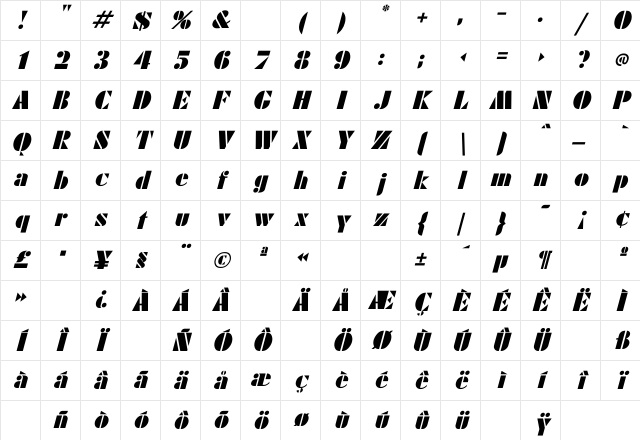
Rodchenko Italic Italic Free Font
Rodchenko Italic Italic
Style: Italic
Design Context for Rodchenko Italic
Rodchenko Italic is a composed and adaptable typeface that performs quietly and consistently across a wide range of design contexts. The slanted form adds forward momentum and visual energy.
Pro Tip: Use Rodchenko Italic for emphasis, pull quotes, and subheadings where its slanted energy can add rhythm to the layout.